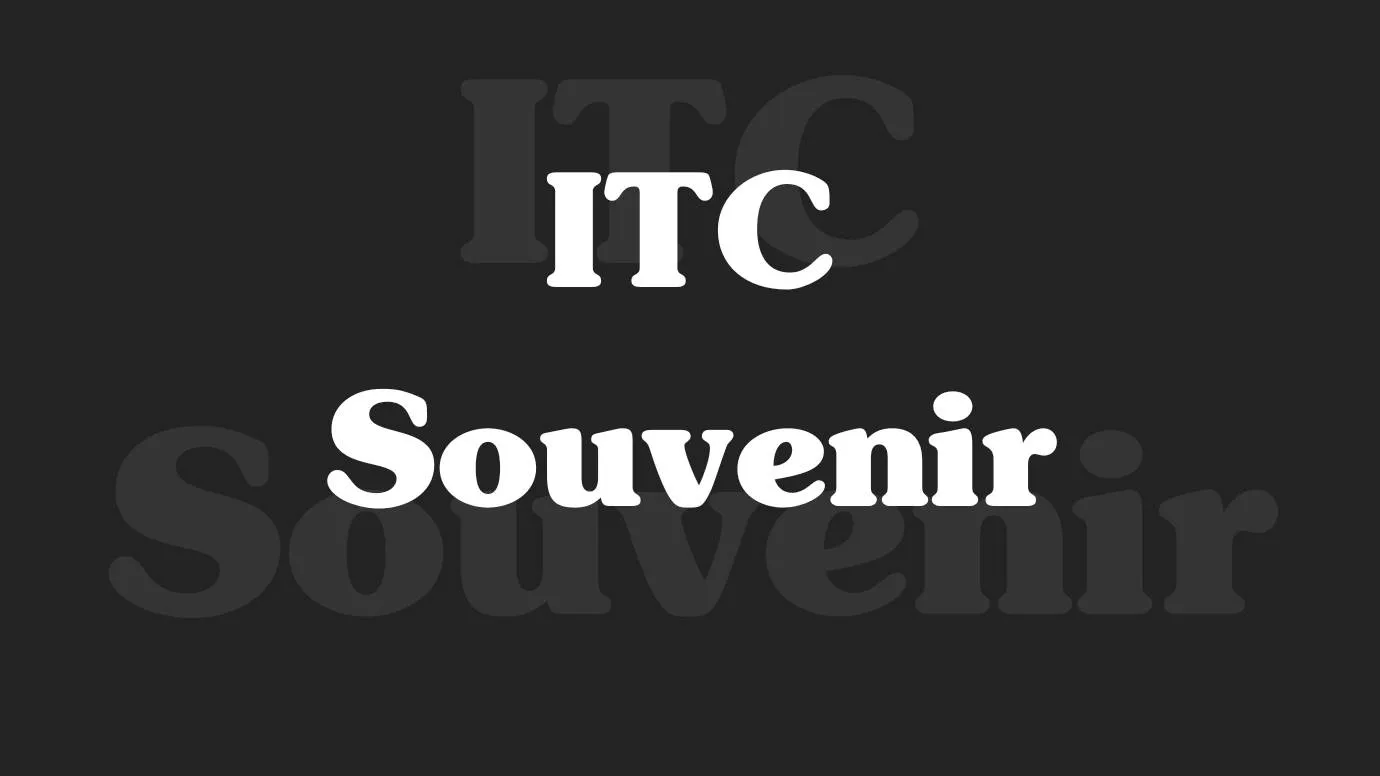
ITC Souvenir is a serif typeface designed in 1914 by using Morris Fuller Benton for American style Founders. Like Cheltenham, it suggests they have an effect on of the humanities and Crafts motion without belonging to a particular ancient kind.
It was once loosely based on Schelter-Antiqua and Schelter-Kursiv, a 1905 artwork Nouveau sort issued by way of the J.G. Schelter & Giesecke foundry in Leipzig.
ITC Souvenir Font
DesignerEdward Benguiat